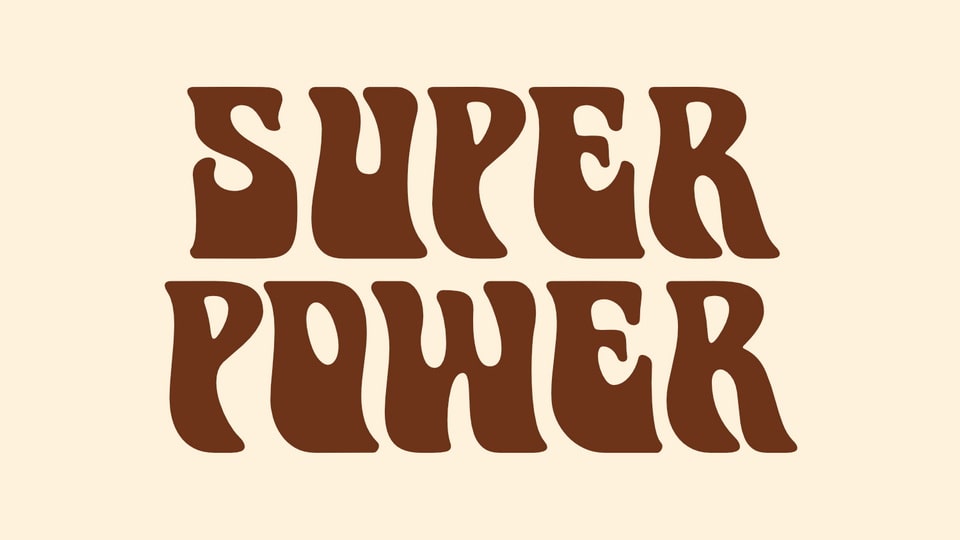
Download Super Power font, a display typeface that channels the bold and vibrant spirit of the groovy ’70s. Each letter in Super Power font is a statement, with thick, confident strokes that echo the dynamic energy of the disco era.